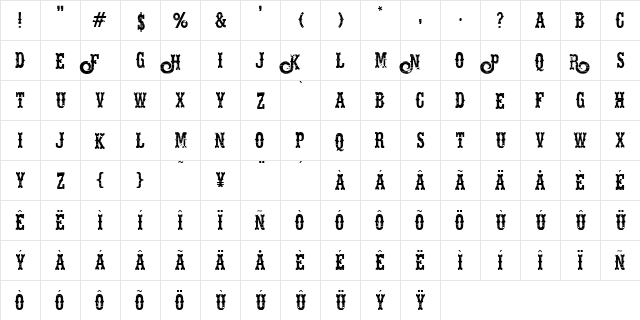
Hells Rider Decay Regular
Design Context for Hells Rider Decay Typeface
Hells Rider Decay is a composed and adaptable typeface that performs quietly and consistently across a wide range of design contexts.